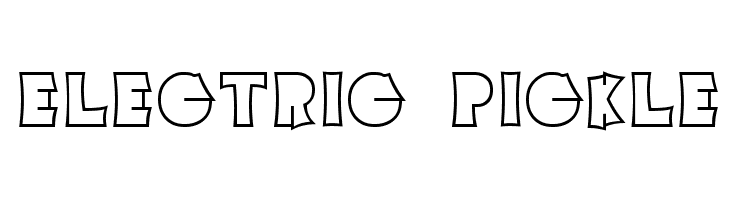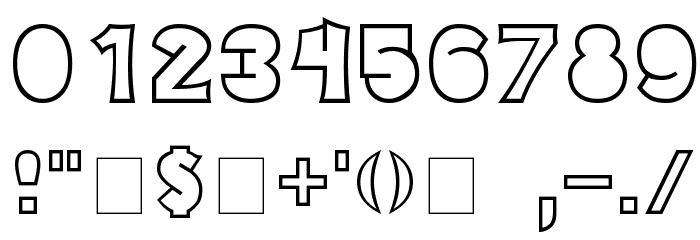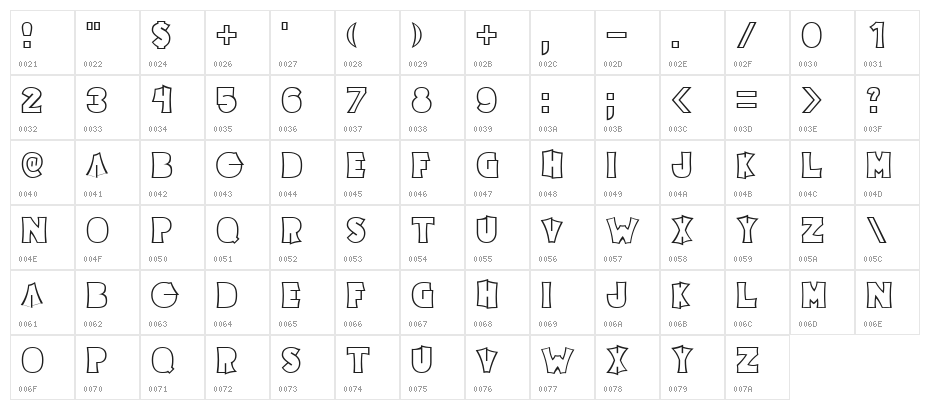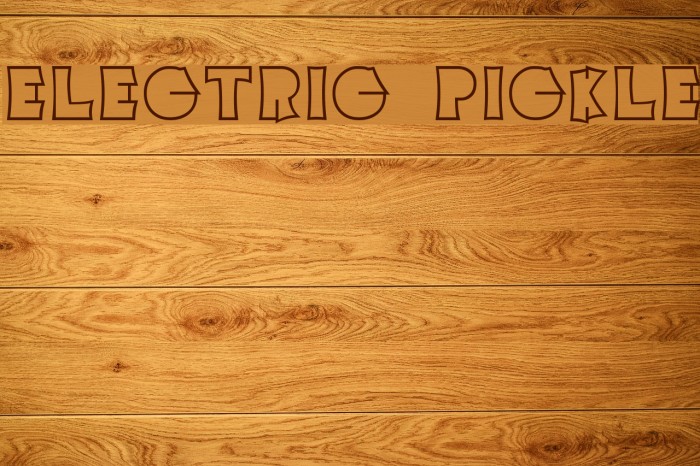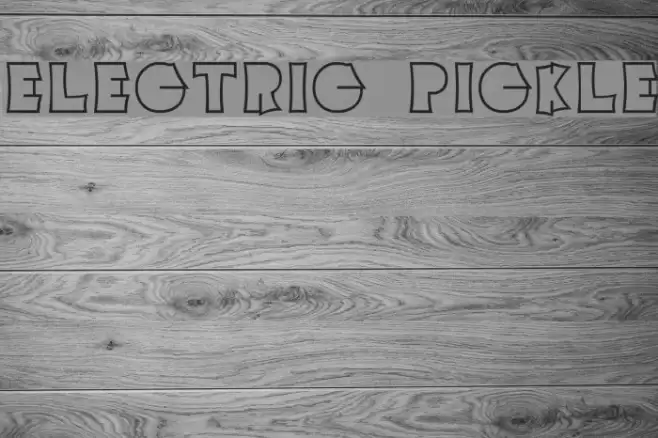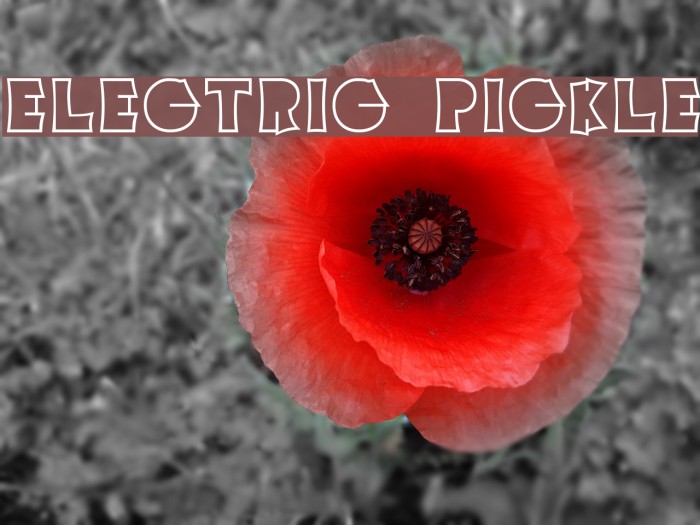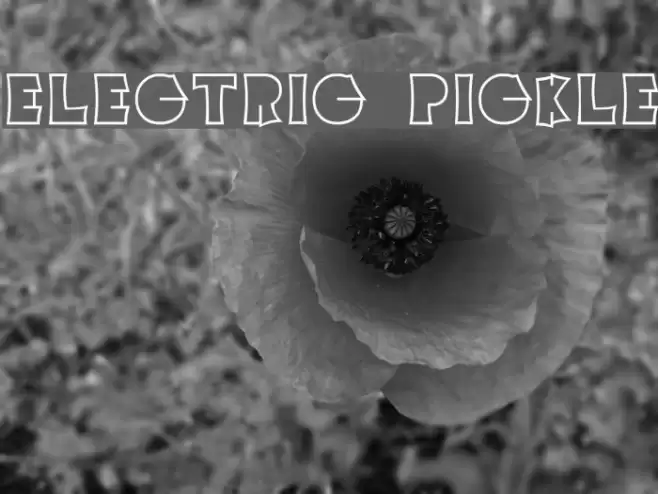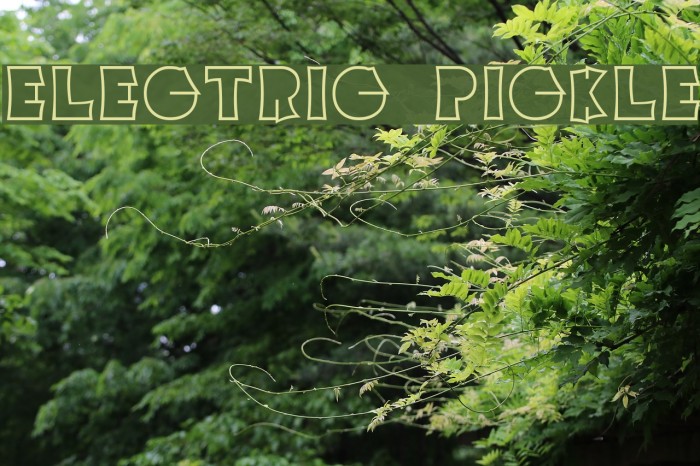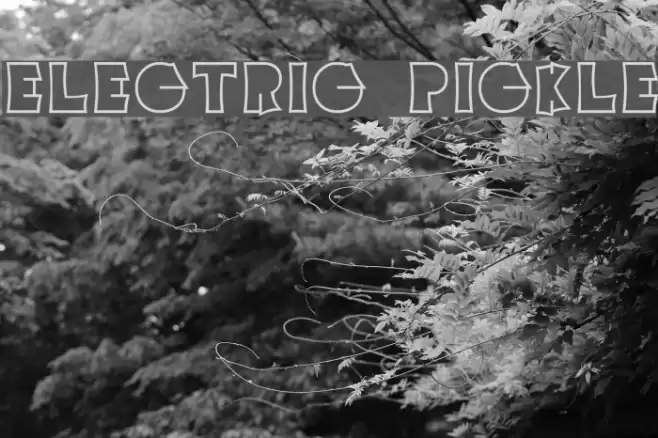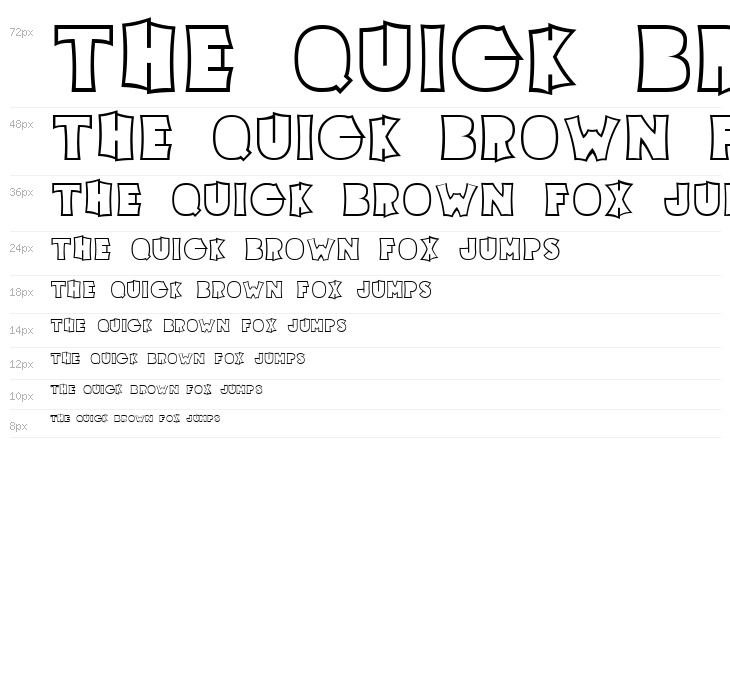
Electric Pickle Font
Electric Pickle Description
This font features a bold and playful design with a unique, jagged outline that gives each character a dynamic and energetic appearance. The uppercase and lowercase letters maintain a consistent style, characterized by sharp angles and a slightly irregular form that adds a sense of movement. The numbers and special characters follow the same aesthetic, ensuring a cohesive look across all elements. The font's distinctive style makes it stand out, making it ideal for creative projects that require a touch of whimsy and boldness.
Overall StylePlayful, Energetic
Proposed ProjectsIdeal for posters, children's book covers, playful branding, and event invitations.